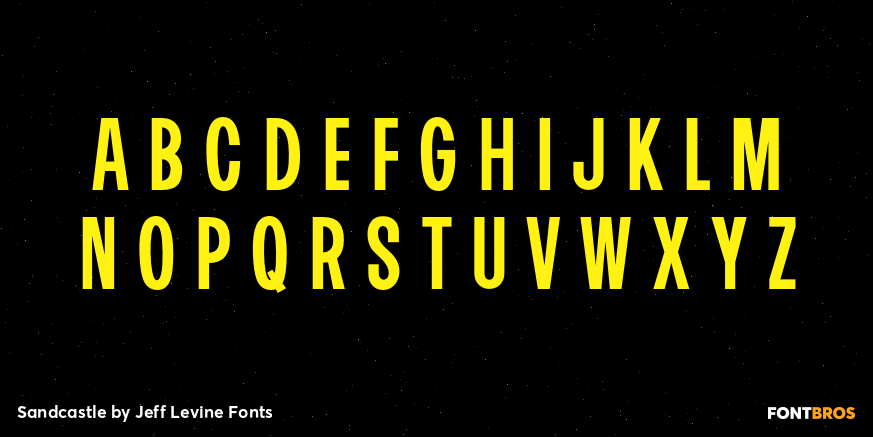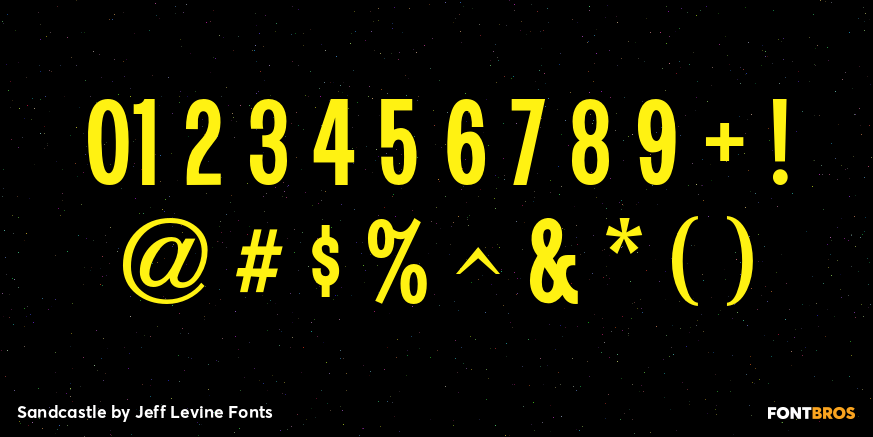
Sandcastle
Based on a popular design of the 50s-60s, Sandcastle JNL has the retro-casual charm of many prints ads of that era. It lends itself well to headlines, price tags, announcements, name plates and just about anything that recreates the mid-century panache.